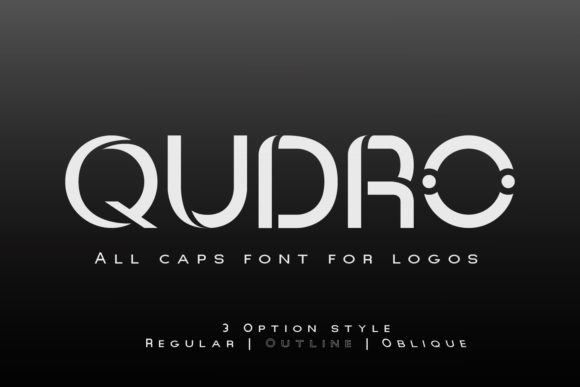
Unleash the Power of Futurism: Qudro Font, the Ultimate Display Typeface for a Captivating Digital Presence
In a world of ordinary fonts, Qudro emerges as a beacon of innovation, a font family that defies conventions and pushes the boundaries of creativity. This display font is a symphony of sharp lines, geometric shapes, and a touch of the extraordinary, igniting a new era of digital expression.
As an artist, designer, or entrepreneur, you recognize the importance of visual impact in today's digital landscape. Qudro understands this need and offers you a versatile tool to elevate your designs, leaving an imprint that commands attention and sparks conversations.
With Qudro, you can effortlessly create web designs that resonate, business cards that demand a second glance, and an array of marketing materials that leave a lasting impression. Its crisp and futuristic aesthetics seamlessly blend with modern trends, propelling your brand into the spotlight.
But Qudro is more than just a font; it's an experience. Its bold strokes and dynamic angles evoke a sense of energy and movement, engaging your audience and inviting them to explore the depths of your creativity. Whether you're designing logos, posters, or social media graphics, Qudro becomes an integral part of your storytelling, adding an extra layer of depth and intrigue.
Gone are the days of settling for monotonous and predictable fonts. Qudro challenges you to embrace the unconventional, to break free from the mundane and embrace a new realm of possibilities. Its versatility knows no bounds, adapting effortlessly to a myriad of design projects, from sleek and sophisticated to playful and experimental.
So, dive into the world of Qudro and let your imagination soar. Let this font be your creative companion, guiding you to new heights of visual expression. With Qudro by your side, every design becomes a masterpiece, every project an unforgettable experience, and every interaction a connection forged in the realm of digital artistry.